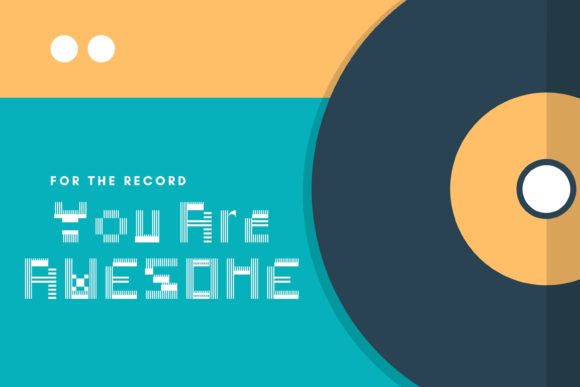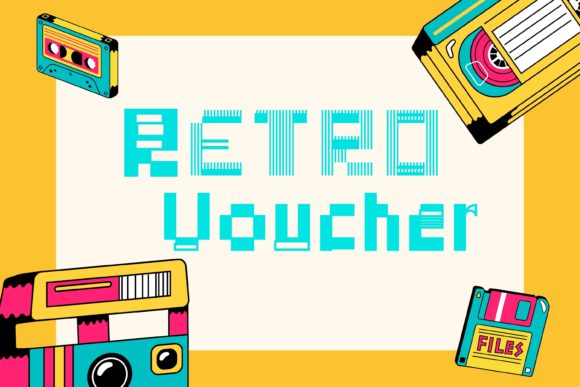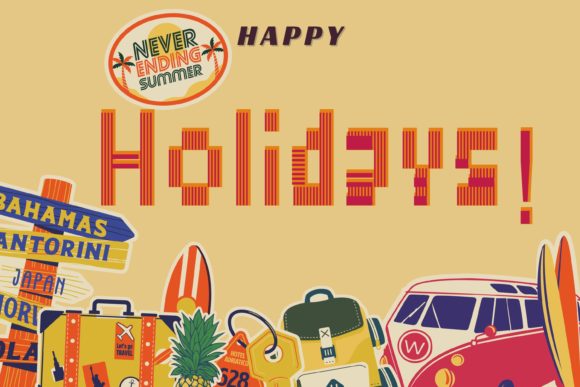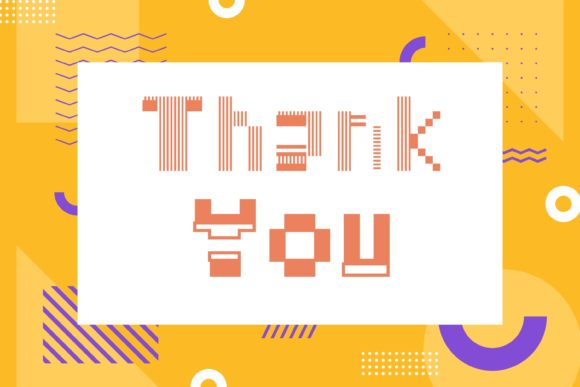
Bricks in Line Font: The Ultimate Display Font for Modern Designs
In the world of typography, a font can make or break a design. When it comes to creating a statement piece, designers and crafters need a font that is both modern and versatile. That’s where Bricks in Line Font comes in – a cool and modern styled display font that is perfect for any branding project. In this article, we’ll explore the features and benefits of Bricks in Line Font, and how it can elevate your designs to the next level.
What is Bricks in Line Font?
Bricks in Line Font is a display font designed to make a statement. Its unique and modern style is inspired by the simplicity of bricks in a line, hence the name. The font features clean lines, sharp edges, and a bold aesthetic that is sure to grab attention. Whether you’re working on a logo, t-shirt printing, or creative products, Bricks in Line Font is the perfect choice.
Key Features of Bricks in Line Font
- Modern and Cool Style: Bricks in Line Font boasts a modern and cool style that is perfect for designers and crafters who want to create something unique and eye-catching.
- Versatile: This font is versatile and can be used in a variety of contexts, from logos and t-shirt printing to creative products and more.
- Easy to Read: Despite its bold aesthetic, Bricks in Line Font is easy to read, making it perfect for headlines, titles, and short phrases.
- High-Quality Design: The font is designed with high-quality graphics, ensuring that it looks great in both digital and print formats.
Benefits of Using Bricks in Line Font
So, why should designers and crafters choose Bricks in Line Font for their projects? Here are just a few benefits:
- Stand Out from the Crowd: With Bricks in Line Font, you can create designs that stand out from the crowd. Its unique style ensures that your work will be noticed.
- Perfect for Branding: Bricks in Line Font is perfect for branding projects, including logos, business cards, and more. Its modern style ensures that your brand will look professional and up-to-date.
- Great for Crafters: Crafters will love Bricks in Line Font for its versatility. Use it for t-shirt printing, iron-on designs, and more.
A: Yes, despite its bold aesthetic, Bricks in Line Font is easy to read, making it perfect for headlines, titles, and short phrases.